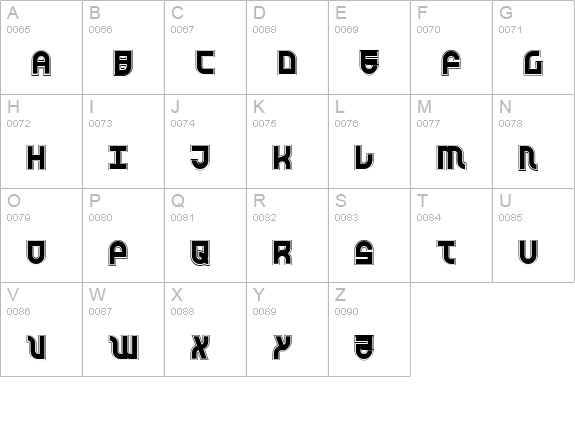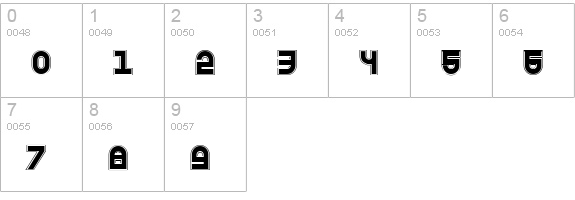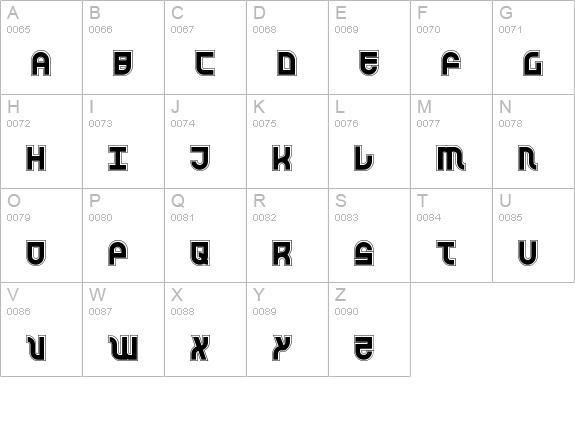
Trek Trooper Academy Font Details
Introducing Trek Trooper Academy font, a bold and adventurous typeface perfect for those seeking to make a statement with their designs. This unique font exudes a sense of courage and determination, making it ideal for projects that require a touch of boldness and flair. Trek Trooper Academy font is meticulously crafted with attention to detail, ensuring that each letter is perfectly balanced and visually appealing. Its strong and commanding presence makes it the perfect choice for headlines, logos, posters, and more. Best of all, Trek Trooper Academy font is available for free download at FontsMarket.com. This means you can easily add this striking font to your collection without breaking the bank. Don't miss out on the opportunity to enhance your designs with this powerful and versatile typeface. Download Trek Trooper Academy font today and let your creativity soar to new heights!